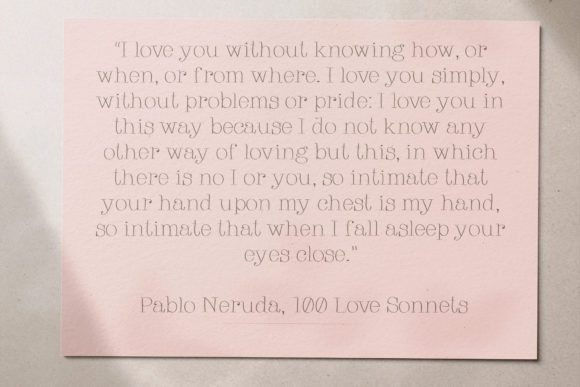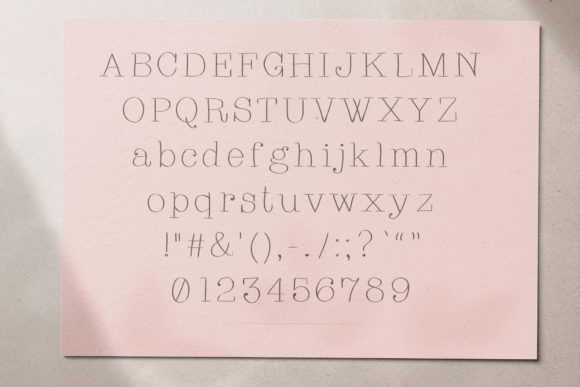
Discover the Elegance of Gewida Font: A Timeless Serif Choice for Designers
In the vast universe of typography, finding the perfect font that combines elegance, uniqueness, and versatility can be a daunting task. However, for those in search of a typeface that ticks all these boxes and more, Gewida Font emerges as a shining star. This article aims to introduce you to the Gewida Font, exploring its characteristics, uses, and why it stands out as a preferred choice for designers and crafters alike.
What is Gewida Font?
Gewida is an elegant and unique serif font, crafted with precision to meet the demands of modern design. Its neat and simple style makes it incredibly versatile, suitable for a wide variety of designs. Whether you’re working on a branding project, a website, a print magazine, or any other creative endeavor, Gewida has the potential to become your go-to font.
The Characteristics of Gewida Font
The beauty of Gewida lies in its subtle yet distinctive features. Here are a few characteristics that make Gewida stand out:
- Elegant Serifs: Gewida’s serifs add a touch of sophistication and elegance, making it perfect for designs that require a refined look.
- Simple and Neat: The simplicity of Gewida ensures that it remains legible across various sizes and mediums, making it highly versatile.
- Unique Personality: Gewida possesses a unique personality that sets it apart from more traditional serif fonts. Its distinctiveness can help your designs stand out.
Uses of Gewida Font
The versatility of Gewida makes it suitable for a multitude of design projects. Here are some of the areas where Gewida can make a significant impact:
- Branding and Logo Design: Gewida’s elegant and unique style makes it an excellent choice for logos and branding projects that aim to convey sophistication and class.
- Web Design: For websites, especially those related to fashion, art, and culture, Gewida can provide a refined and professional look.
- Print Media: In print, Gewida shines in magazines, brochures, and books, adding a touch of elegance to any content.
- Digital Media: Gewida is also suitable for digital media, including presentations, infographics, and even video scripts.
Why Choose Gewida Font?
With so many fonts available, why should Gewida be your top pick? Here are a few compelling reasons:
- Versatility: Gewida can be used across a wide range of projects, making it a valuable addition to your font library.
- Legibility: Its simplicity and neat style ensure that Gewida remains legible, even at smaller sizes.
- Elegance: Gewida brings a level of sophistication to your designs, helping you create visually appealing content.
- Uniqueness: In a sea of similar fonts, Gewida’s distinctive style helps your designs stand out from the crowd.
How to Use Gewida Font Effectively
To make the most out of Gewida, consider the following tips:
- Pair it Wisely: Gewida can be paired with sans-serif fonts for a contrasting look or with other serif fonts for a harmonious blend.
- Experiment with Sizes: Play with different font sizes to create visual hierarchy and emphasize key points.
- Adjust Line Spacing: Ensure that your text is easy to read by adjusting line spacing according to your design needs.
| Font Name | Gewida Font |
| Author | DIGI Potwor |
Gewida Font is more than just a typeface; it’s a design companion that brings elegance, uniqueness, and versatility to your projects. Whether you’re a professional designer or a crafter, Gewida has the potential to elevate your designs and make them memorable. With its neat and simple style, distinctive serifs, and wide range of applications, Gewida is poised to become your favorite go-to font for all occasions.